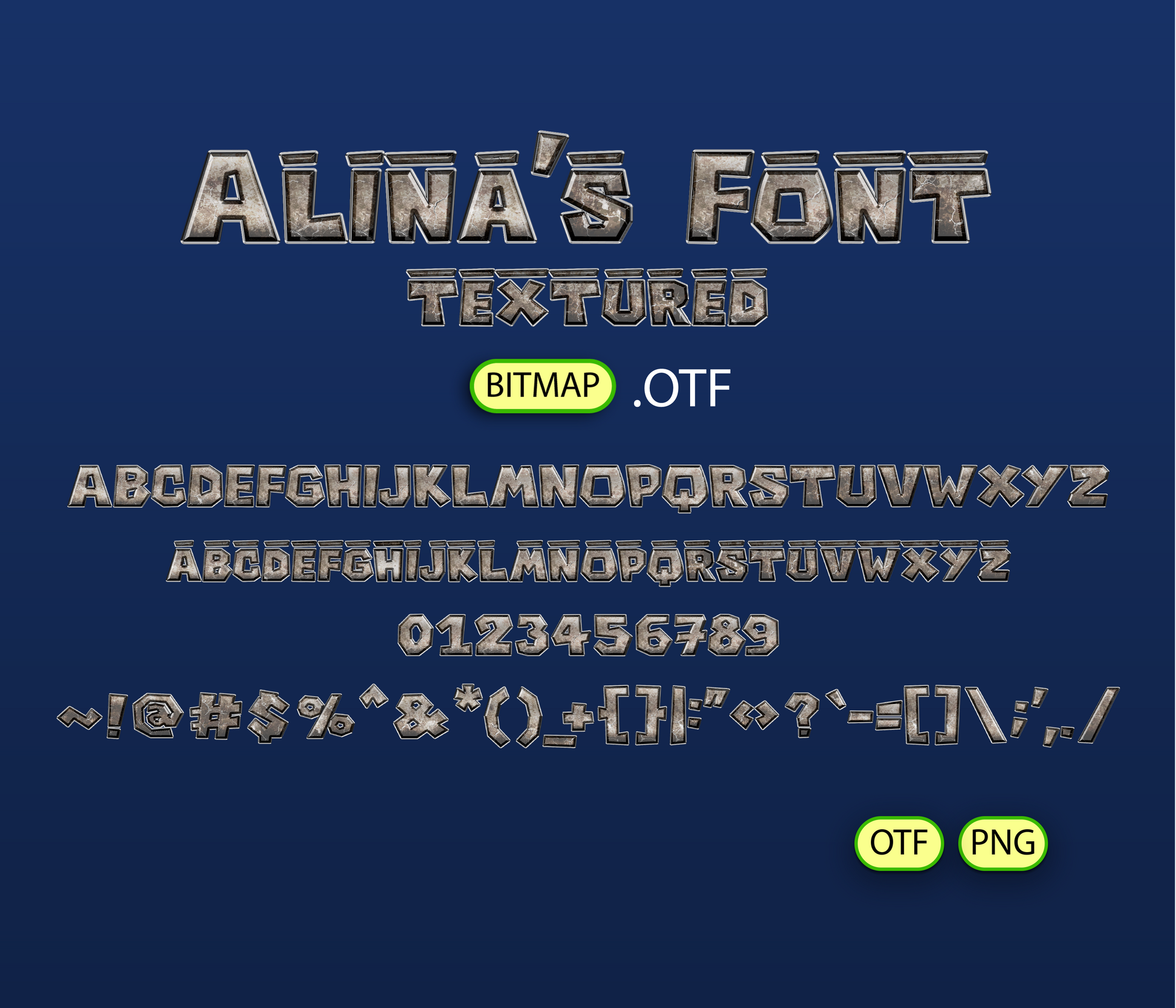
Online Sandbox Universe Font Textured
Step into the limitless world of customizable adventures with our Online Sandbox Universe Font Textured, capturing the essence of freely-designed landscapes and multiplayer collaboration. Perfect for digital entertainment lovers, festivity organizers, media creators, and design enthusiasts, this font brings the captivating, animated spirit of open-ended construction tales to your projects. Create memorable invitations, commercial products, or internet content with the enthusiastic presence of cooperative building sagas.
Bold Typography for Modern Design & Playful Projects
Our Online Sandbox Universe Font Textured features striking, stylized letterforms with angular surface details reflecting the world of identity customization and collaborative playground environments.
- Event Promotions: Create memorable invitations, displays, and marketing materials for digital celebrations, youth gatherings, and community events that capture the spirit of inventive construction entertainment
- Merchandise Design: Perfect for garments, decorative prints, peel-and-stick labels, and keepsakes that showcase the captivating aesthetic of open-world design themes
- Digital Media: Enhance website pages, streaming platforms, and online networks with animated header designs and graphics that express the joy of unrestricted exploration
- Creative Content: Add signature flair to supporter artwork, character illustrations, and imaginative projects inspired by community-generated adventure chronicles
- Personal Projects: Bring creative vitality to scrapbooks, handmade creations, and interior decorations inspired by the world of boundless personalization personalities
Our font pays tribute to the world of inventive construction stories and interactive digital culture, empowering your projects with its captivating and animated spirit. Whether crafting enthusiast materials, designing youth-targeted products, or adding a creative touch to personal projects, this font communicates the energetic essence of community-generated entertainment. Ready to inject collaborative construction excitement into your creations? This font is your key to memorable, impactful design.